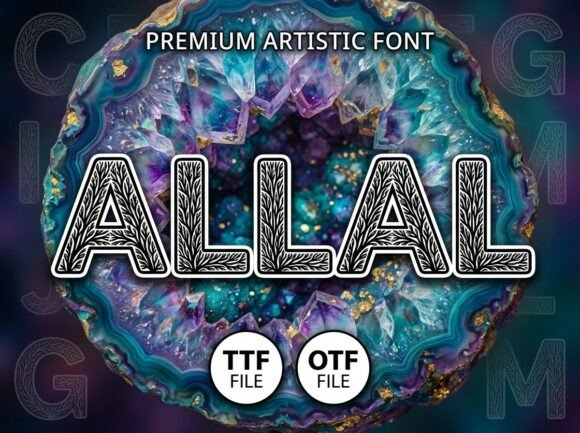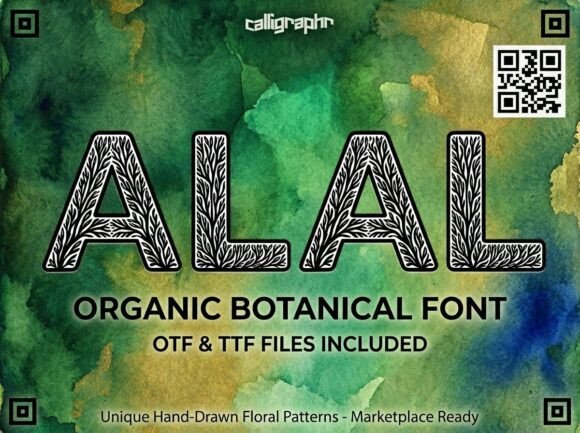
Introducing Allal Font: A Stunning Decorative Display Font
Are you tired of using the same old fonts for your designs? Do you want to make a statement and grab the attention of your audience? Look no further than Allal Font, a unique and artistic decorative display font that’s perfect for creators who want to break away from the ordinary.
Allal Font is designed to be the center of attention, featuring unique artistic elements and a strong visual personality that sets it apart from other fonts. Its stunning decorative style makes it perfect for bold headlines, artistic logos, and creative packaging, while maintaining a professional and polished finish.
⚠️ IMPORTANT NOTE BEFORE PURCHASE: Allal Font is an ALL-CAPS (Uppercase Only) display typeface. This means that it does not include lowercase letters. It’s specifically designed for high-impact headlines, logos, and decorative initials where every letter is a work of art.
Allal Font is perfect for designers and crafters who want to add a touch of elegance and sophistication to their work. Whether you’re creating:
• Headlines that grab attention and make a statement
• Logos that showcase your brand’s personality and style
• Packaging that stands out on store shelves
• Social media graphics that engage and inspire your audience
Allal Font is the perfect choice. Its unique and artistic style will help you to:
• Establish your brand’s identity and voice
• Create visually stunning designs that capture attention
• Add a touch of sophistication and elegance to your work
Why Choose Allal Font?
Here are just a few reasons why Allal Font stands out from the crowd:
• Unique and artistic style that’s unlike any other font
• High-impact design that’s perfect for headlines, logos, and decorative initials
• Professional and polished finish that will elevate your designs